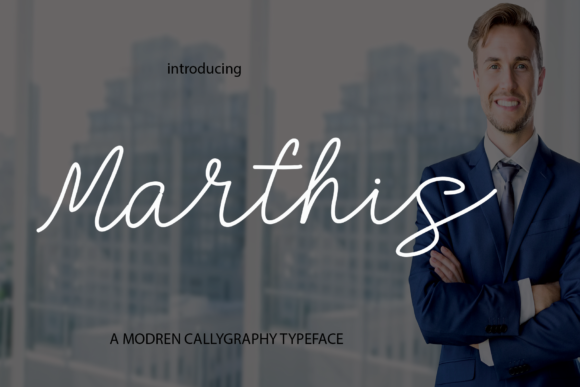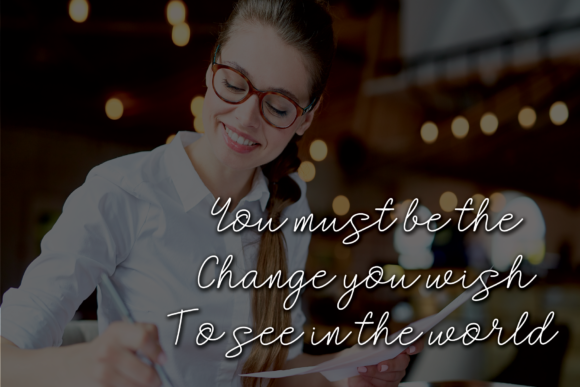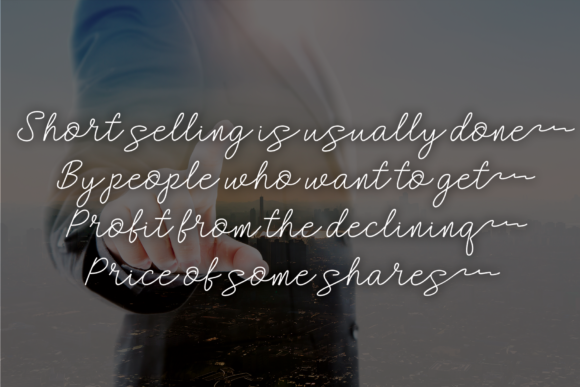
HomeScript FontsMarthis Font Script Fonts Marthis Font FacebookXPinterestWhatsApp Marthis Font Poster 2 Marthis Font Poster 3 Marthis Font Poster 4 Marthis Font Poster 5 Marthis Font Poster 6 Marthis Font Poster 7 About Marthis Font Marthis is a light and charming handwritten font with a bold feel. Get inspired by its contemporary vibe! DOWNLOAD ON CREATIVE FABRICAThis font is sold and delivered by Creative Fabrica. Font Canyon may earn a commission if you buy through this link. People also explored Star Kids Font MFC Chaplet Monogram Versica Font Monotone Font Creepy Spiders Font Castlove Font Author Type Font Christa Font Tahabas Font 381 0 TagsMarthis Font Previous articleSeduh FontNext articleHargael Duo Font LEAVE A REPLY Cancel reply Comment: Please enter your comment! Name:* Please enter your name here Email:* You have entered an incorrect email address! Please enter your email address here Website: Save my name, email, and website in this browser for the next time I comment. Personal Use Free Septhine Personal Use Free Read more about this font Ayam Bakar Personal Use Free Read more about this font Pridaem Cooper Personal Use Free Read more about this font Manhattan Personal Use Free Read more about this font BLOG Free vs Paid Fonts: Why Investing in Premium Fonts Is Worth It Free vs Paid Fonts: Why Premium Fonts Are Worth It in 2025 The debate of free vs paid fonts continues in the design world. While... Transform Your Website: Elevate Your Typography with 7 Best Web Font Generators Modern Sans-Serif Fonts That Brands Love in 2025 Top 10 Handwritten Fonts That Elevate Your Designs